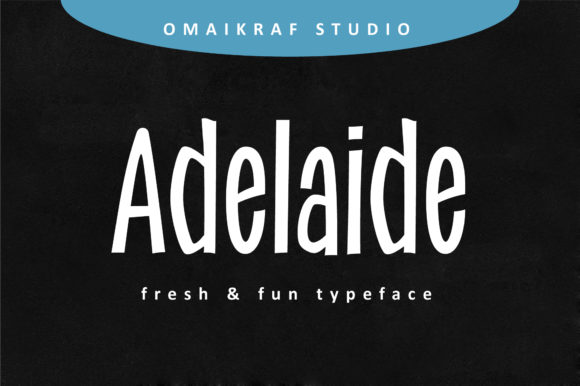
The Ultimate Guide to Adelaide Font: A Fun and Relaxed Display Font
I’ll never forget the time I was working on a branding project for a trendy new coffee shop. My client wanted a font that was casual, yet eye-catching, and would appeal to a young audience. I spent hours scouring the internet for the perfect font, but nothing seemed quite right. That was until I stumbled upon Adelaide Font. ✨
Adelaide is a fun and relaxed display font that’s perfect for a wide range of designs, from branding and product packaging to invitations, quotes, and more. In this article, I’ll share my honest review of Adelaide Font, a practical guide on how to use it, and some helpful tips and tricks.
- ✨ Casual and versatile: Adelaide Font is perfect for a wide range of designs, from fun and playful to elegant and sophisticated.
- ✅ Easy to read: Despite its casual vibe, Adelaide Font is surprisingly easy to read, even at smaller sizes.
- 💃 Unique character: Adelaide Font has a distinctive personality that’s sure to make your designs stand out.
While Adelaide Font is an amazing font, it’s not perfect. Here are a few things to keep in mind:
- 🤔 Limited use in formal designs: While Adelaide Font is versatile, it’s not the best choice for formal designs, such as business reports or academic papers.
Adelaide Font was designed by a talented font designer who wanted to create a font that was both fun and elegant. The font’s unique character and versatility have made it a favorite among designers and crafters.
Q: What is Adelaide Font?
A: Adelaide Font is a fun and relaxed display font that’s perfect for a wide range of designs, from branding and product packaging to invitations and quotes.
Q: Is Adelaide Font suitable for body text?
A: While Adelaide Font is easy to read, it’s not the best choice for body text. It’s better suited for titles, headings, and short paragraphs.